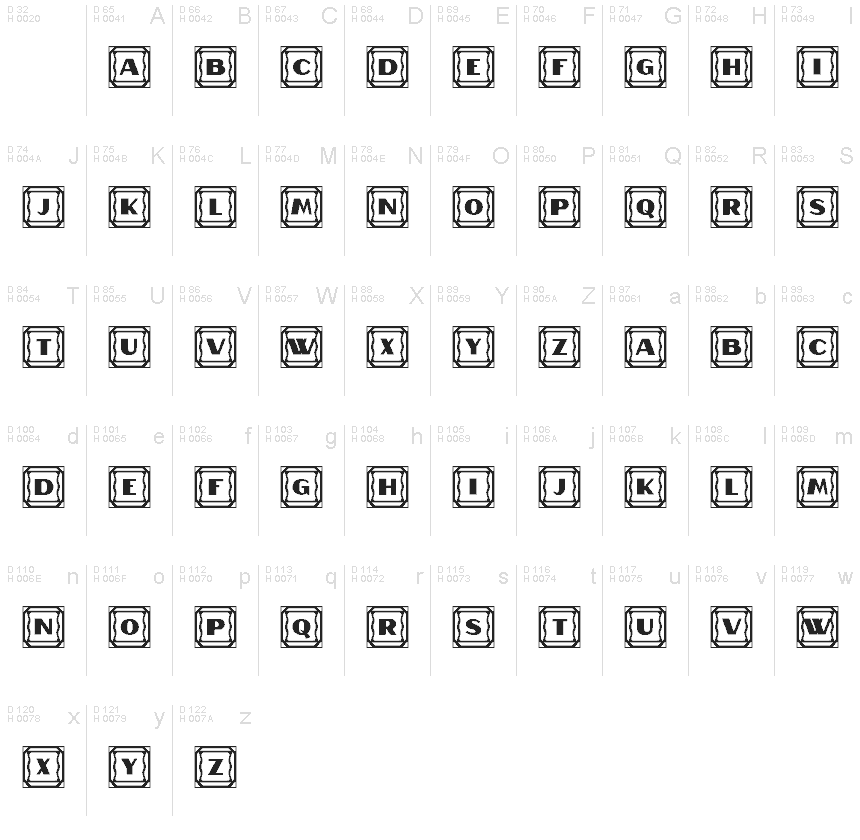
Crisper Capitals Regular
Crisper Capitals font by Vladimir Nikolic is a stunning display font with a decorative style, bold weight, and expanded width. Its vintage-inspired look and intricately designed characters provide sophistication and major visual impact. With contrasting strokes and elaborate details, its letters easily transform into attractive compositions that capture the attention.